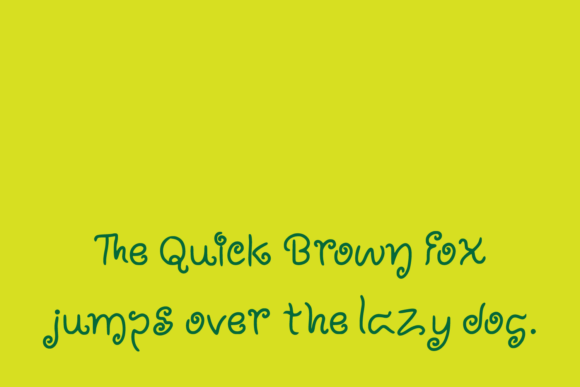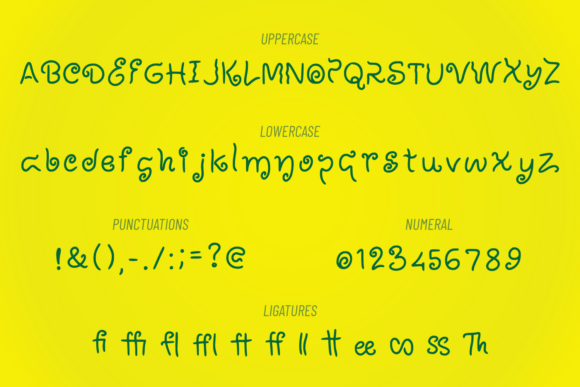
Introduction to Little Chameleon Font
Little Chameleon — Cute Hand-Drawn Display Typeface with Whimsical Ligatures Add warmth and joy to any creative project with Little Chameleon, a lively hand-drawn typeface that mirrors a chameleon’s playful adaptability.
Rounded strokes, spiral terminals, and an easy bounce give your words a friendly, approachable vibe while staying clean and legible—perfect for headlines, logos, packaging, classroom printables, kids’ books, stickers, and social posts Little Chameleon Font’s Features: Full uppercase A–Z and lowercase a–z Numbers 0–9 and essential punctuation Charming OpenType ligatures for smooth, natural text flow: fi, ffi, fl, ffl, ff, ll, tt, ee, oo, ss, Th Optimized for big, eye-catching display use; works beautifully with bright color palettes and layered shadows OpenType-aware apps are recommended to access ligatures.